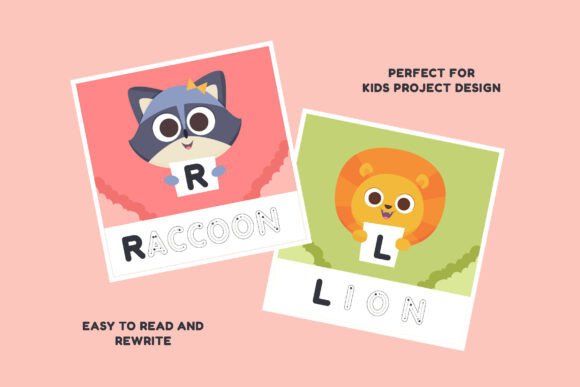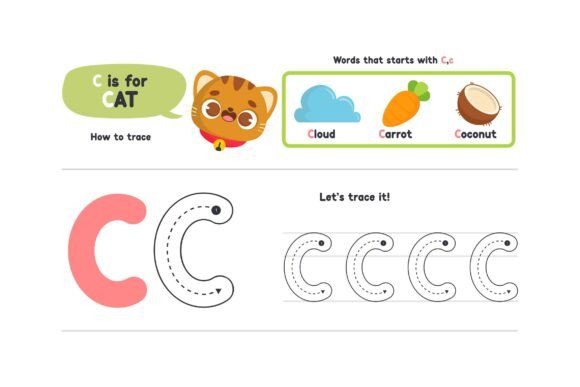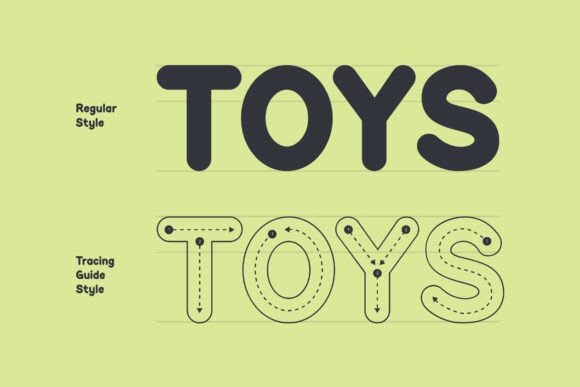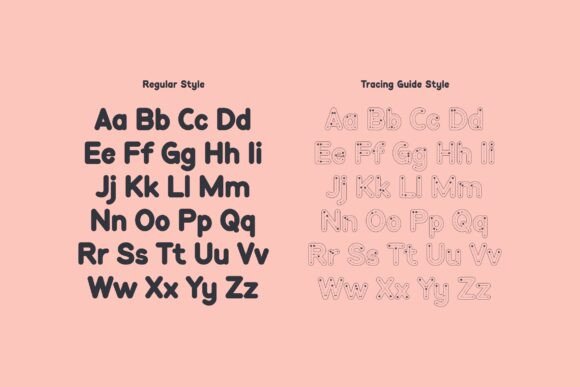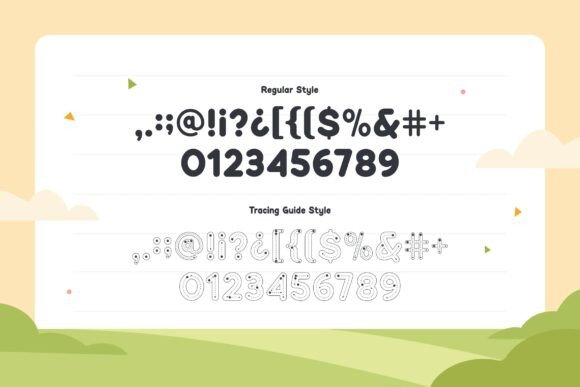
Unlocking Creativity in Children’s Education
Do you remember the excitement of learning to write your name, the first time you mastered the alphabet, or the thrill of creating your own artwork? For many of us, the journey of childhood learning is filled with joy and discovery. As designers, we have the power to make this journey even more engaging and effective.
Enter the Kidos Font, a revolutionary new font designed specifically for children’s education. This innovative font combines a playful “Regular” style with a “Tracing Guide” style that features dotted lines and arrows to teach children the correct formation of letters. The result is a powerful tool for teachers and parents to make learning the alphabet a fun and interactive experience. With the Kidos Font, designers can create educational materials, worksheets, and activities that are both enjoyable and effective.
Whether you’re designing educational materials, children’s books, or product packaging, the Kidos Font is a valuable addition to your toolkit. Its versatility and engaging design make it the perfect choice for anyone looking to make a positive impact on children’s education.
Kidos Font Key Features
- Font Family: Kidos Font is a sans-serif font family designed for digital use. It is available in various weights and styles, including light, regular, bold, and italic.
- Character Set: Kidos Font supports a wide range of languages, including Latin, Cyrillic, and Greek alphabets, as well as various punctuation and symbol characters.
- Resolution: The font is optimized for use at high resolutions, making it ideal for use in digital displays, such as smartphones, tablets, and computer monitors.
- Unique Characteristics: Kidos Font features a clean and modern design, with a unique blend of geometric and organic shapes. Its distinctive x-height and letter spacing make it highly legible and readable, even at small font sizes.
Kidos Font Review
At first glance, Kidos Font seems like a promising addition to any font collection. ✨ The playful and modern aesthetic makes it an excellent choice for a wide range of applications, from kids’ content to trendy marketing materials. The font’s clean lines and rounded edges create a friendly and approachable vibe that’s sure to engage your audience.
Here are some of the things I like about Kidos Font:
- ✨ Wide range of applications, from digital to print media
- ✨ Suitable for various industries, including education, marketing, and entertainment
- ✨ Friendly and approachable aesthetic
- ✨ Good for headings and titles due to its modern and bold style
- ⚠️ Limited character set, which may cause compatibility issues with certain software
- ⚠️ Not suitable for formal or professional content, due to its playful nature
- ⚠️ May not be as readable in smaller font sizes
Overall, Kidos Font is a great addition to any designer’s toolkit, but it’s essential to understand its limitations and use it accordingly. With its playful and modern aesthetic, it’s perfect for applications that require a friendly and approachable vibe. Just be mindful of its compatibility and readability issues.
Getting the Most Out of Kidos Font
Use Kidos Font to create playful and child-friendly designs.
Apply it to headings and titles for a bold and eye-catching effect.
Pair it with bright and bold colors to create a visually appealing design.
Kidos Font is perfect for:
Children’s book illustrations
Party invitations and decorations
Playground signage and wayfinding
Child-friendly branding and marketing materials